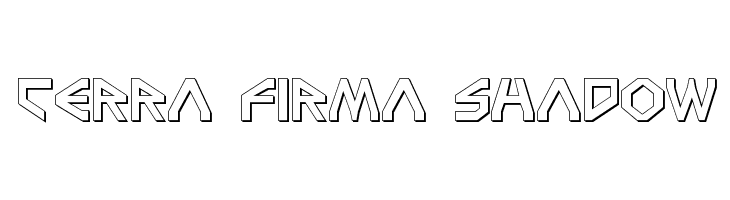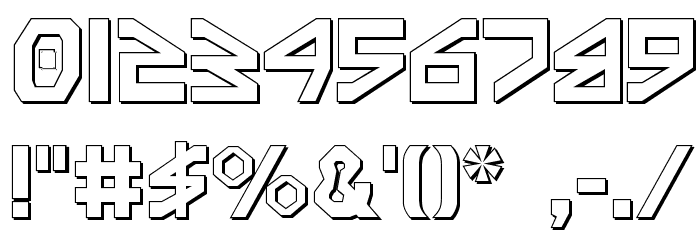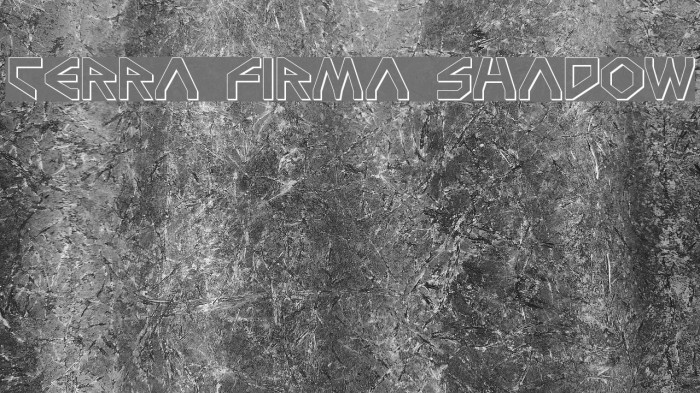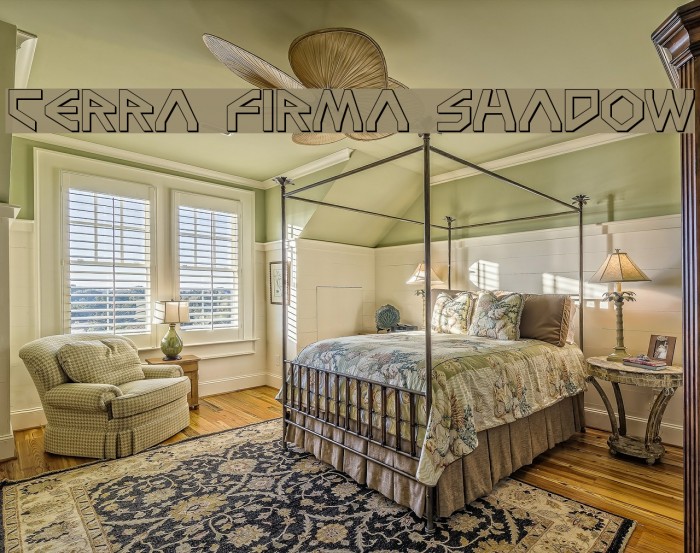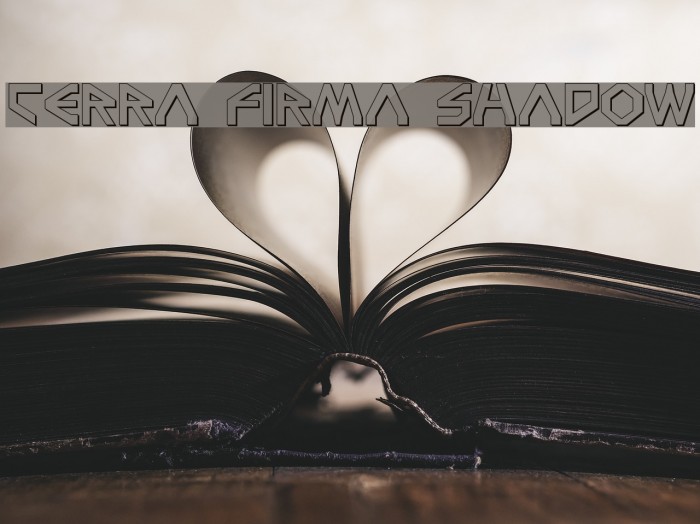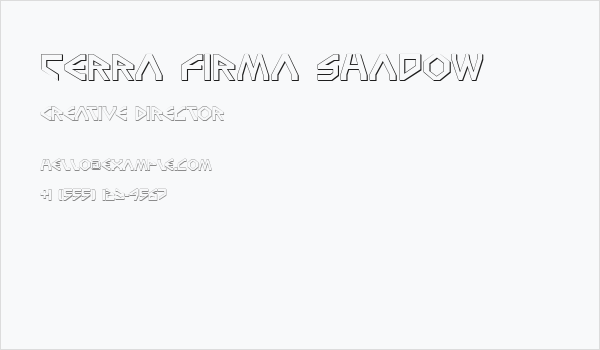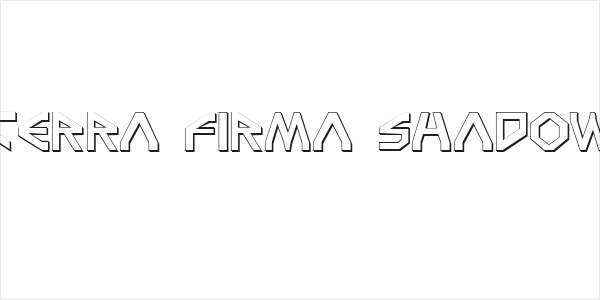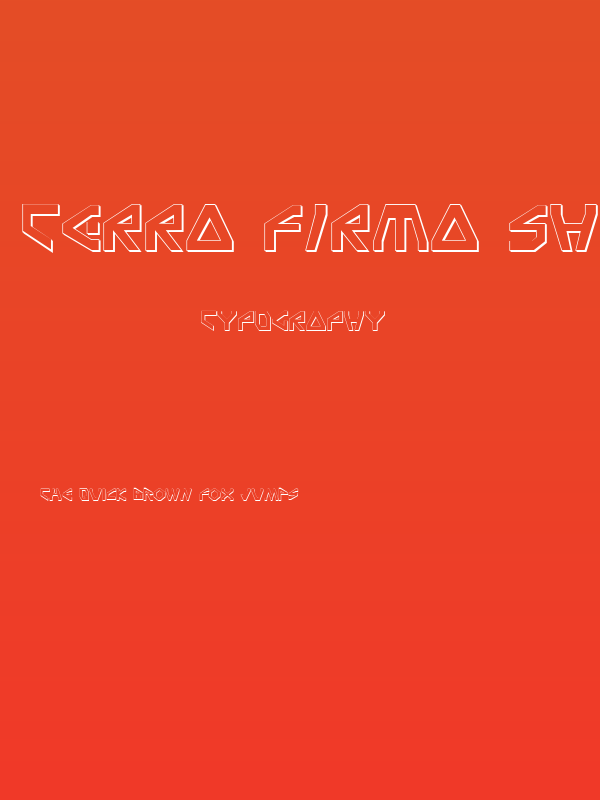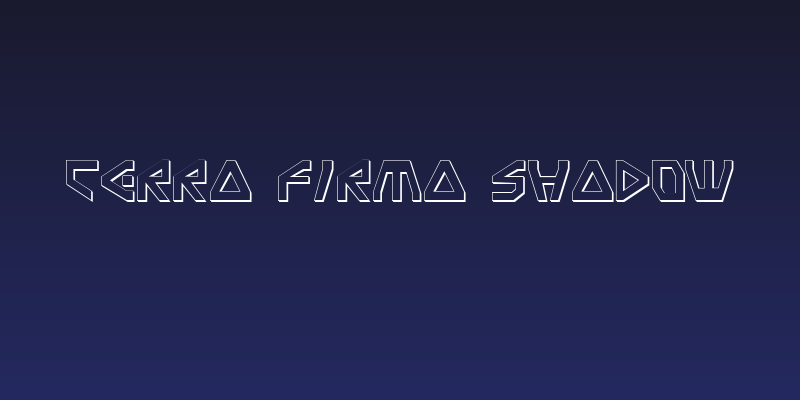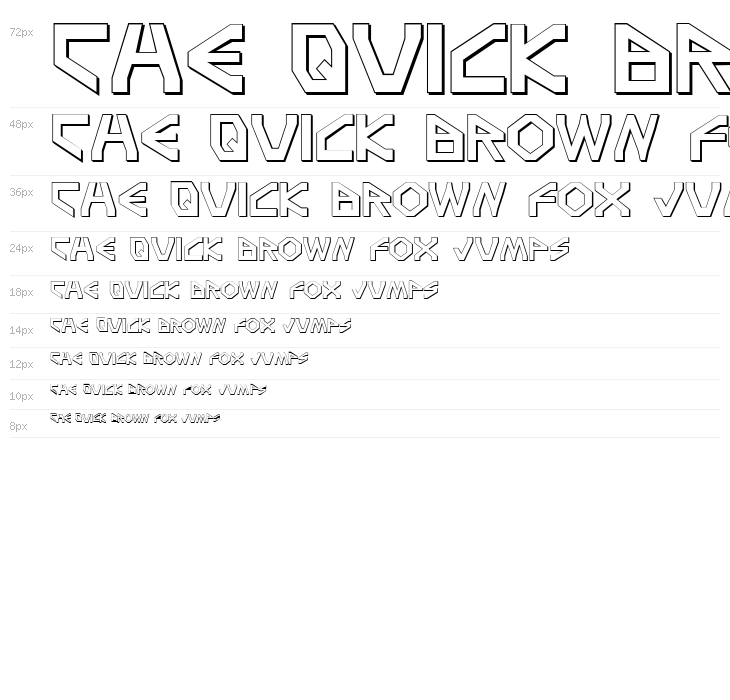
Terra Firma Shadow Font
Terra Firma Shadow Description
This font features a bold, geometric design with a distinct shadow effect that gives it a three-dimensional appearance. The characters are constructed with angular lines and sharp edges, creating a futuristic and dynamic look. The uppercase and lowercase letters maintain a consistent style, with the shadow adding depth and visual interest. The numerals and special characters are designed to match the angular theme, ensuring a cohesive appearance across all glyphs. This font is ideal for projects that require a modern and striking visual impact.
| Proposed Projects | Ideal for futuristic branding, sci-fi themed posters, video game titles, and modern logos. |